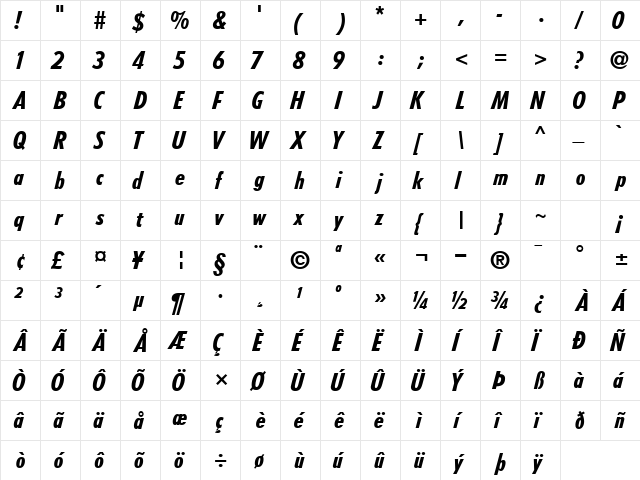
ArcheBlackCondSSK Italic
Design Context for ArcheBlackCondSSK Typeface
ArcheBlackCondSSK is a composed and adaptable typeface that performs quietly and consistently across a wide range of design contexts. Its italic angle brings a sense of urgency and motion to the letterforms. The condensed width makes it efficient for tight spaces without sacrificing legibility.
Pro Tip: Use ArcheBlackCondSSK for emphasis, pull quotes, and subheadings where its slanted energy can add rhythm to the layout.